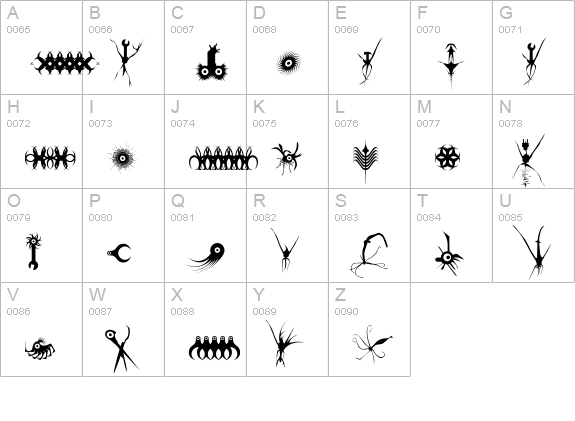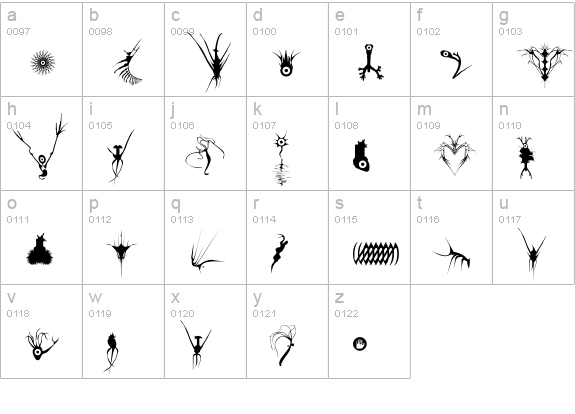
LovingTheAlien Font Details
LovingTheAlien font is a unique and captivating typeface that exudes an otherworldly charm. Its intricate design features sleek lines and elegant curves that give any text a touch of cosmic appeal. The font is perfect for projects that require a modern and futuristic look, whether it's for branding, editorial design, web content, or any creative endeavor. What sets LovingTheAlien font apart is not just its striking aesthetics, but also the fact that it is freely available to download at FontsMarket.com. This means that you can easily access this eye-catching font without any cost, making it a valuable addition to your design toolkit. Embrace the cosmic allure of LovingTheAlien font and elevate your projects to new dimensions of creativity and style.